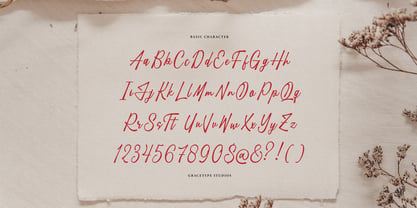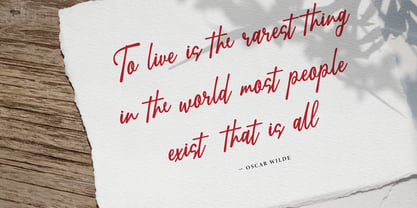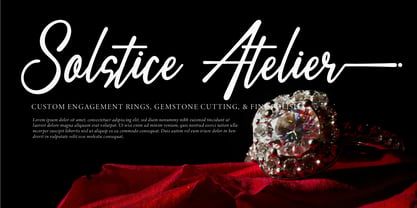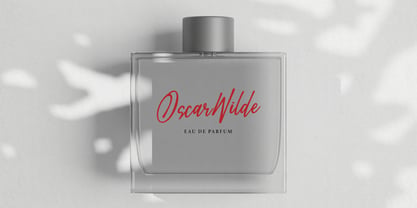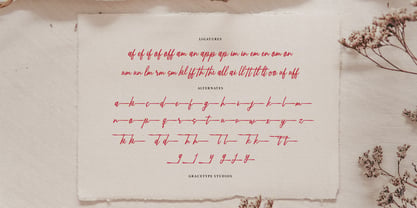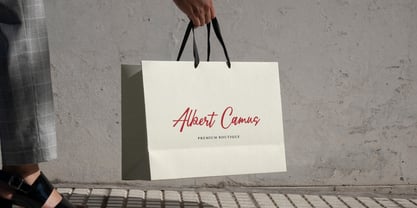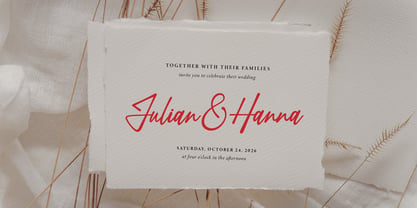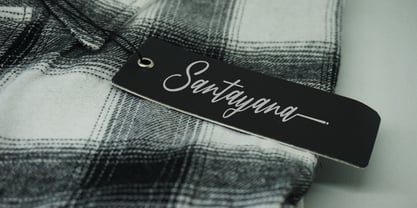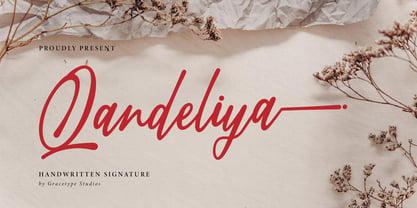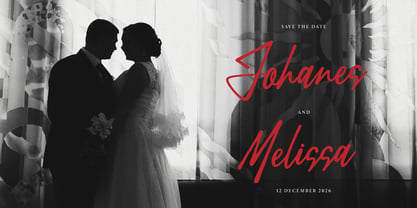
Qandeliya
by Tini Fitriani
The Qandeliya Font Family and published by Tini Fitriani. Qandeliya contains 1 styles and family package options. More about this family
Qandeliya | Handwritten Signature, from Gracetypestudio, suitable for any projects such as: logos, branding projects, homeware designs, product packaging, mugs, quotes, posters, shopping bags, t-shirts, book covers, name card, invitation cards, greeting cards, label, photography, watermark, special events, and all your other lovely projects that need a Signature taste.